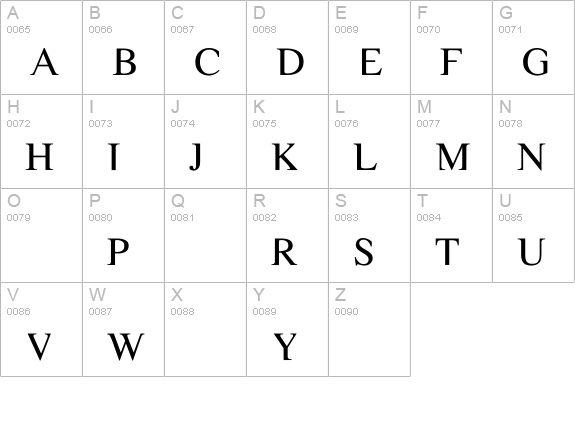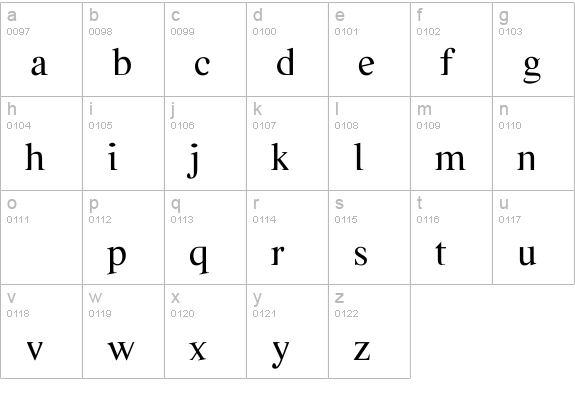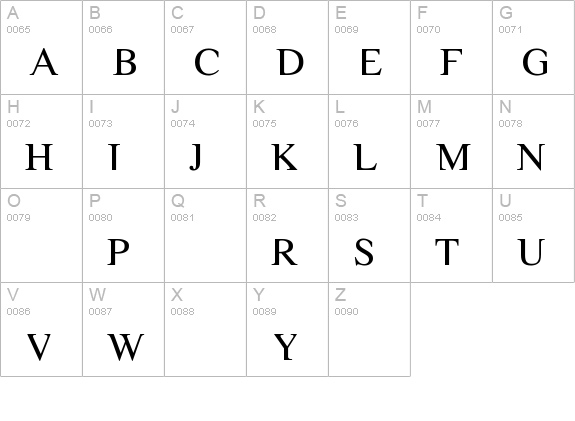
SoftTimes Font Details
SoftTimes is a visually stunning font that combines elegance and versatility in a seamless manner. With its soft and rounded edges, this font exudes a sense of warmth and friendliness that is perfect for a wide range of projects. Whether you are designing a wedding invitation, creating a logo for a modern brand, or simply need a font that adds a touch of sophistication to your website, SoftTimes is the ideal choice. This font boasts a unique and contemporary design, making it stand out from the crowd. Its smooth curves and clean lines give it a modern and polished look that is both eye-catching and easy to read. SoftTimes strikes the perfect balance between being bold and distinctive, while still maintaining a sense of elegance and refinement. One of the best things about SoftTimes is that it is available for free! You can easily download this font at FontsMarket.com, where it is freely available for personal and commercial use. This means that you can use it in all your projects without any restrictions or limitations. Whether you are a professional designer or a hobbyist, SoftTimes gives you the opportunity to elevate your work to the next level. With SoftTimes, you can add a touch of sophistication and style to your designs without breaking the bank. This font offers a level of quality and versatility that is often reserved for premium fonts, but without the hefty price tag. It truly is a font that combines beauty with accessibility. So why wait? Download SoftTimes today and experience the magic of this incredible font. Let it inspire and elevate your designs, and watch as it brings a new level of professionalism to your work. With SoftTimes, the possibilities are endless.